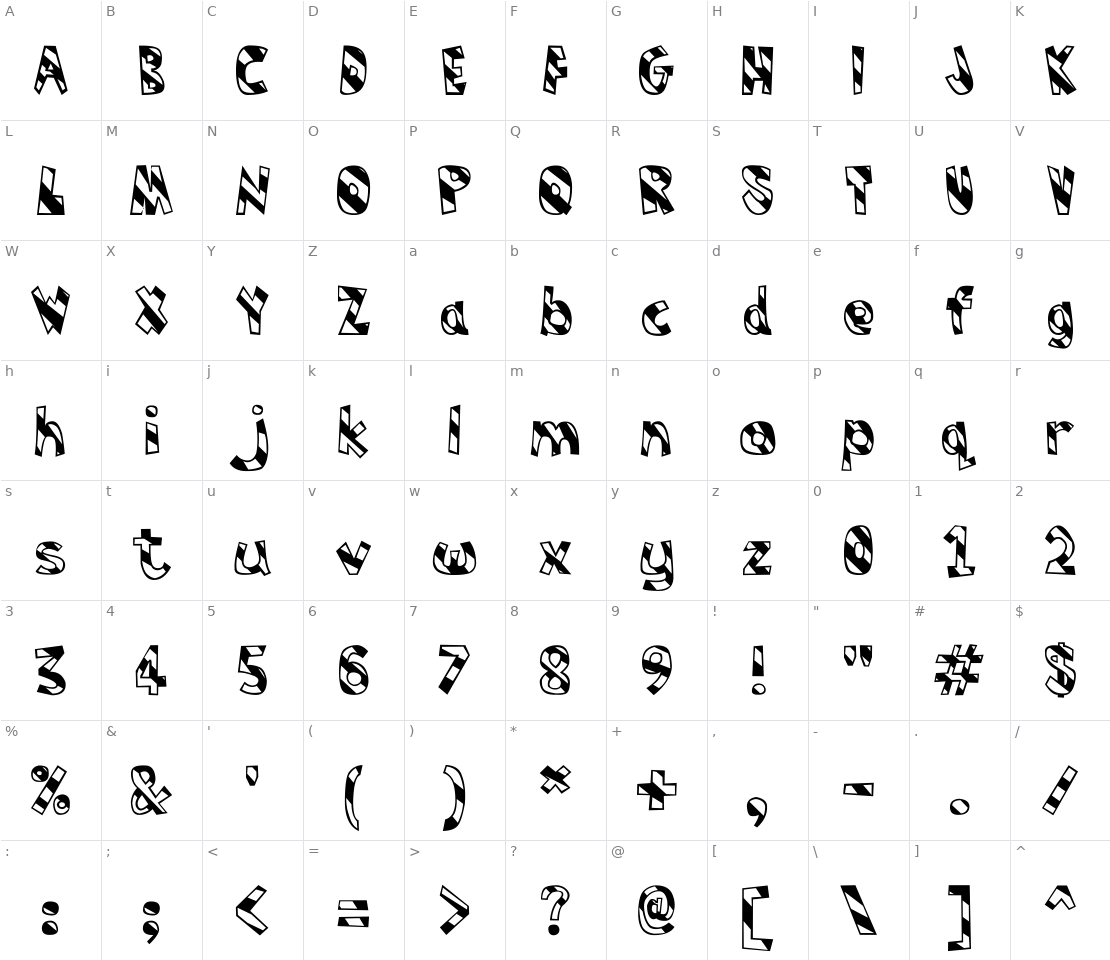
Humbug
Humbug is a bold novelty display face from Blahfonts with striped, patterned fills running through each letterform, giving the whole alphabet a candy-wrapper or optical illusion quality. The quirky detailing makes it purely a headline and poster font, where the patterns are large enough to register without turning into visual noise. It has real personality and doesn't pretend to be anything other than decorative fun.